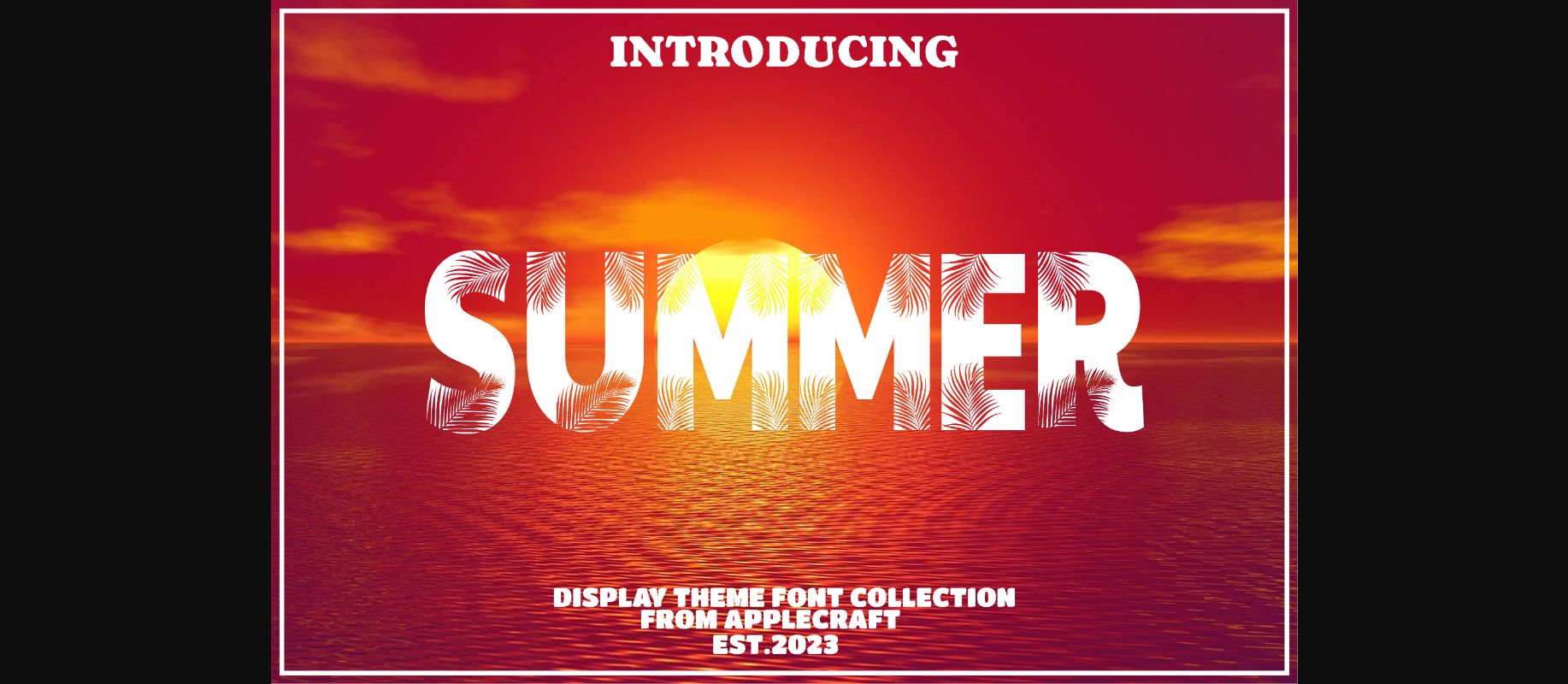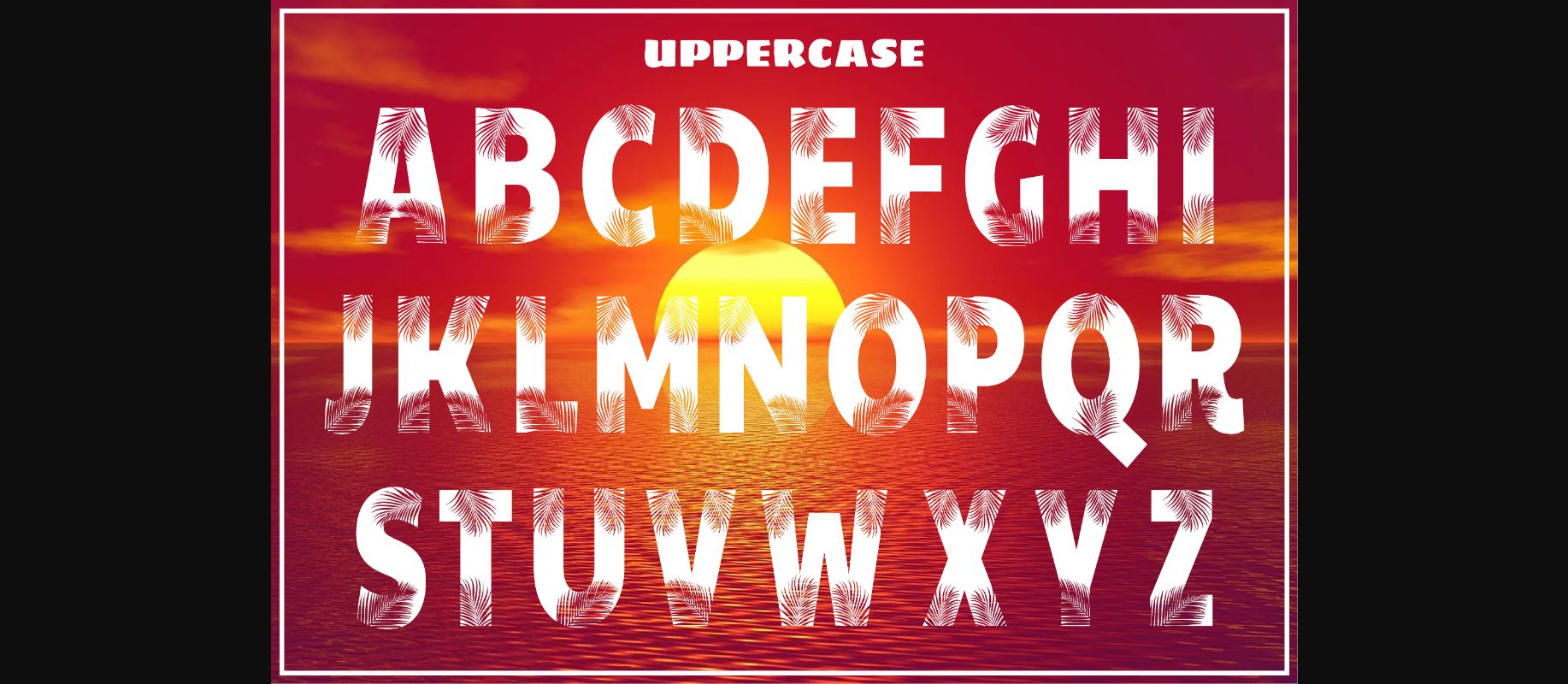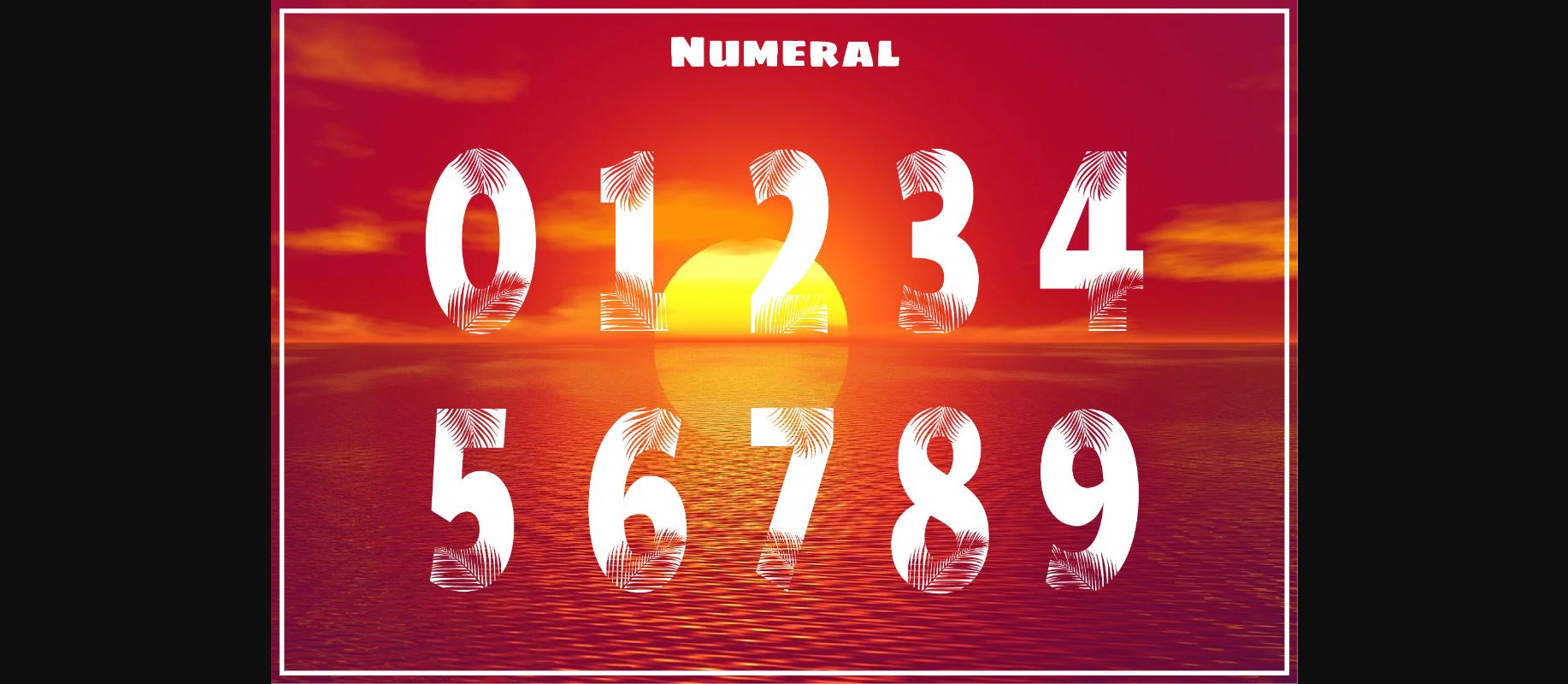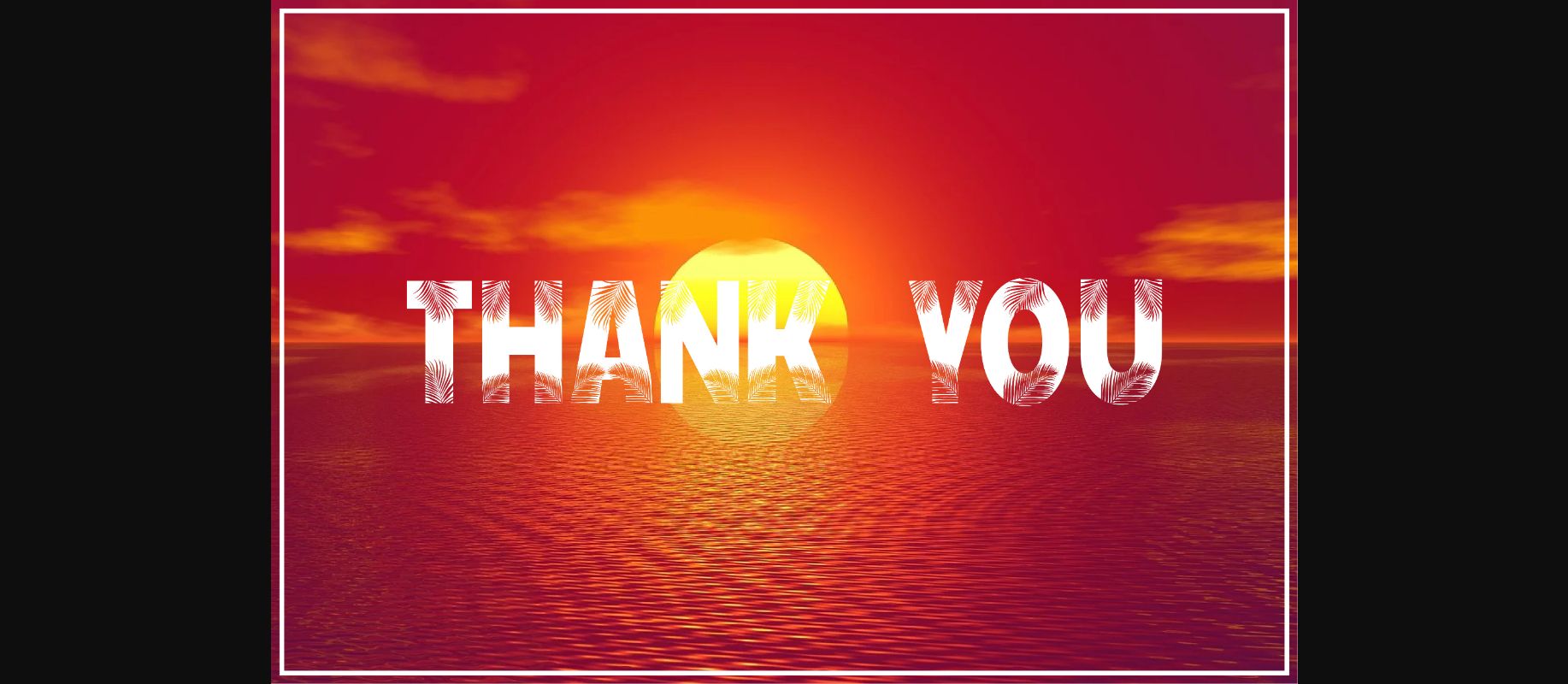
About Summer Font
Summer is a thick lettered and incredibly unique decorative font. It can be used for a large variety of projects and it will definitely brighten up your crafty ideas.